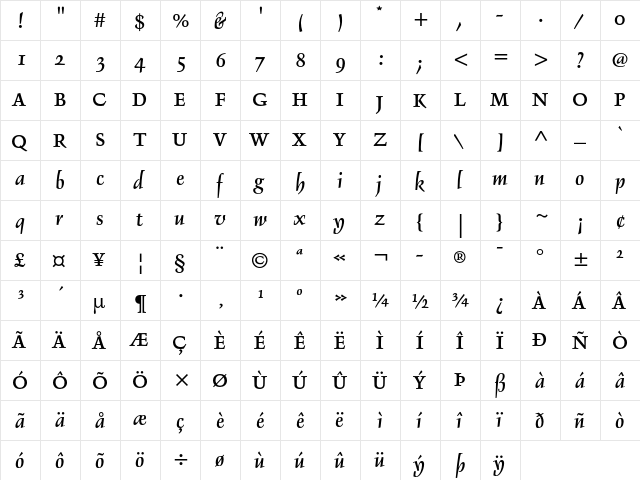
Delphin II Alt
Design Context for Delphin Typeface
Delphin takes a measured approach to typography — its balanced proportions and neutral character make it a reliable workhorse for both digital and print work.